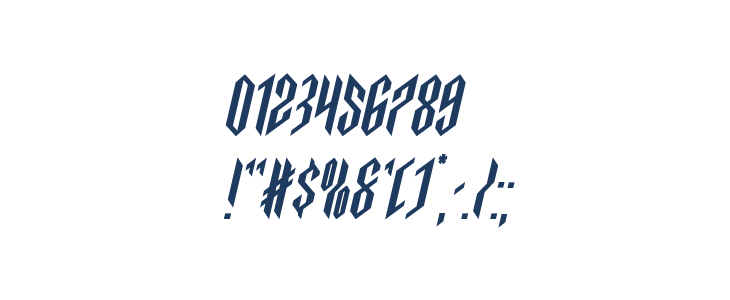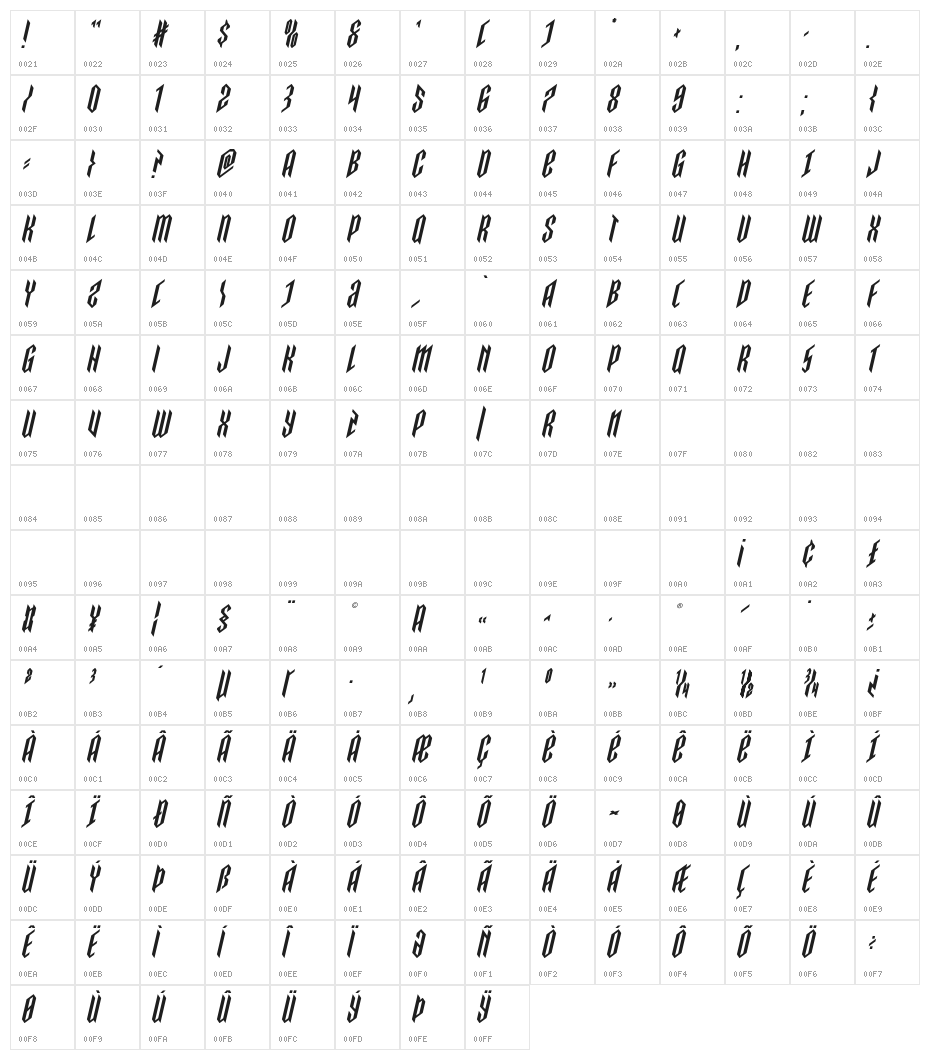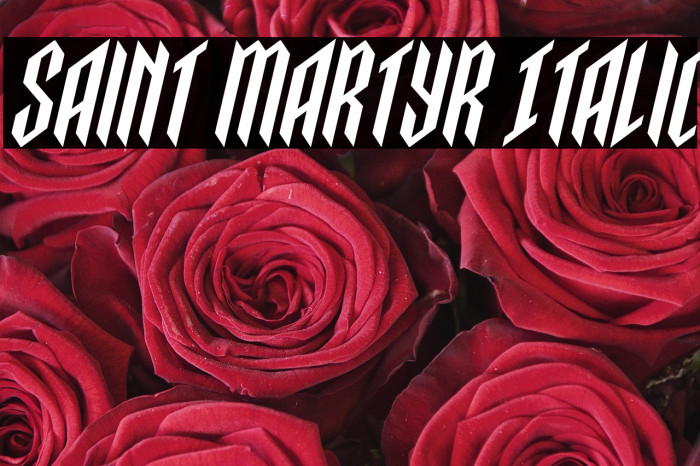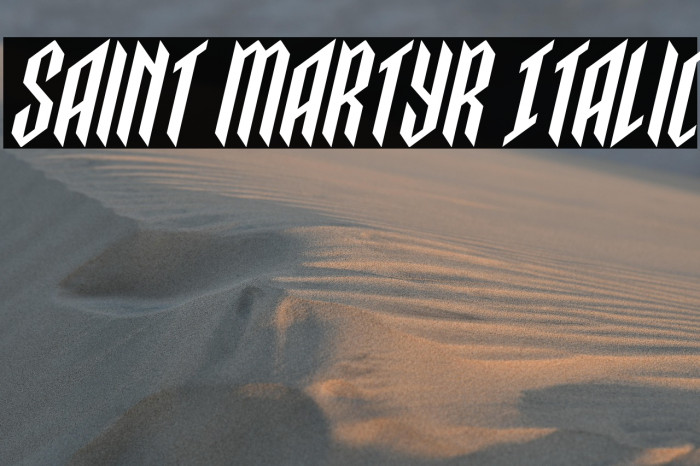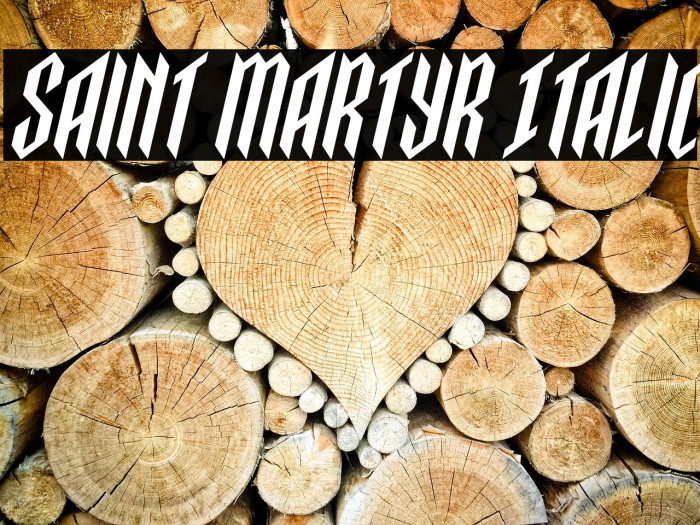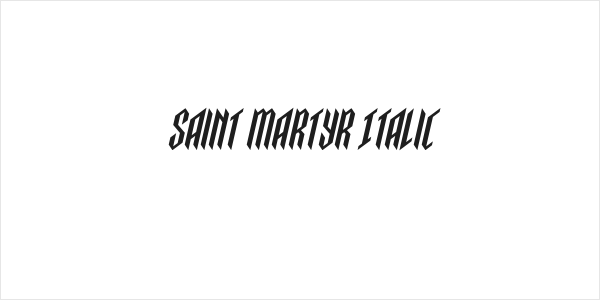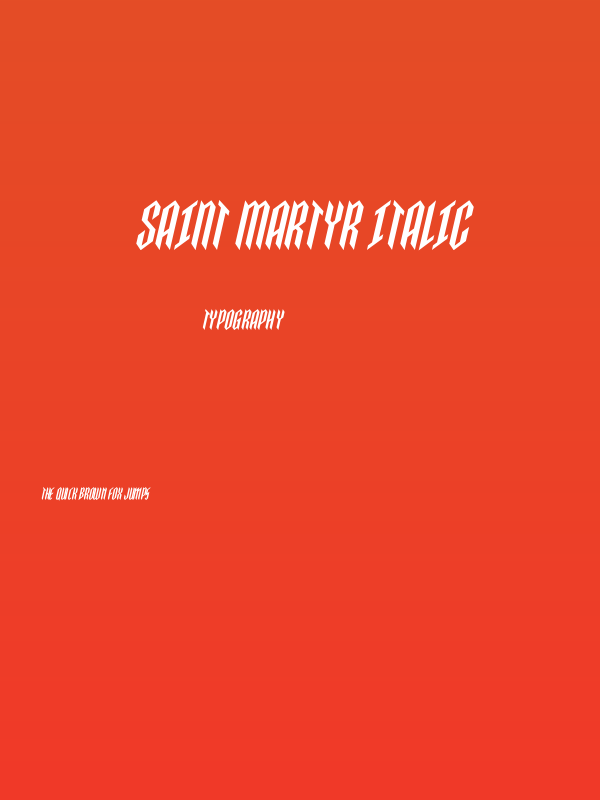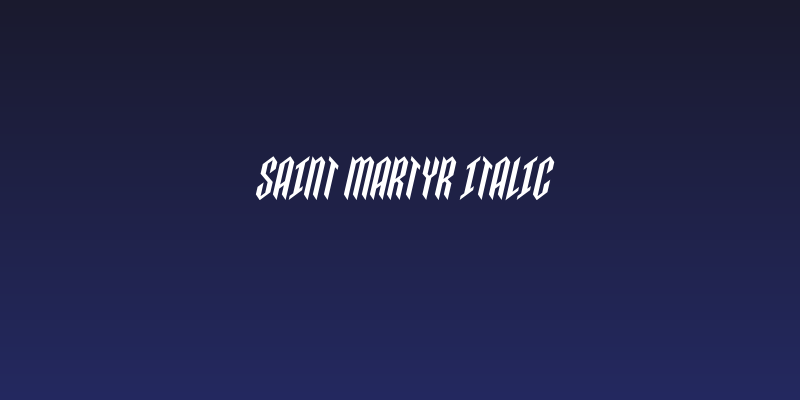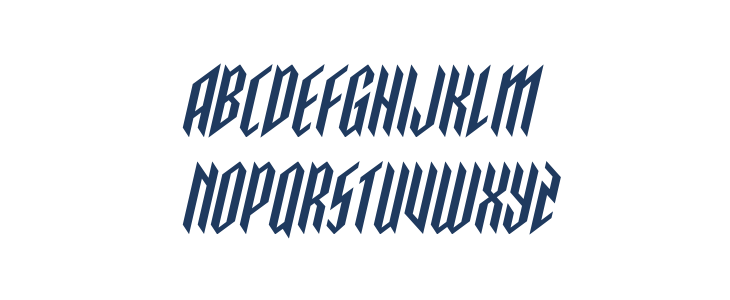
Saint Martyr Italic Font
Saint Martyr Italic Description
This font exhibits a bold and dynamic style with a distinct italic slant, giving it a sense of motion and energy. The characters are sharply angled with a modern, edgy appearance, making them stand out prominently. The strokes are thick and consistent, providing a strong visual impact. The uppercase and lowercase letters maintain a uniform style, while the numerals and special characters are designed to complement the overall aesthetic. This font is ideal for creating attention-grabbing headlines and designs that require a bold statement.